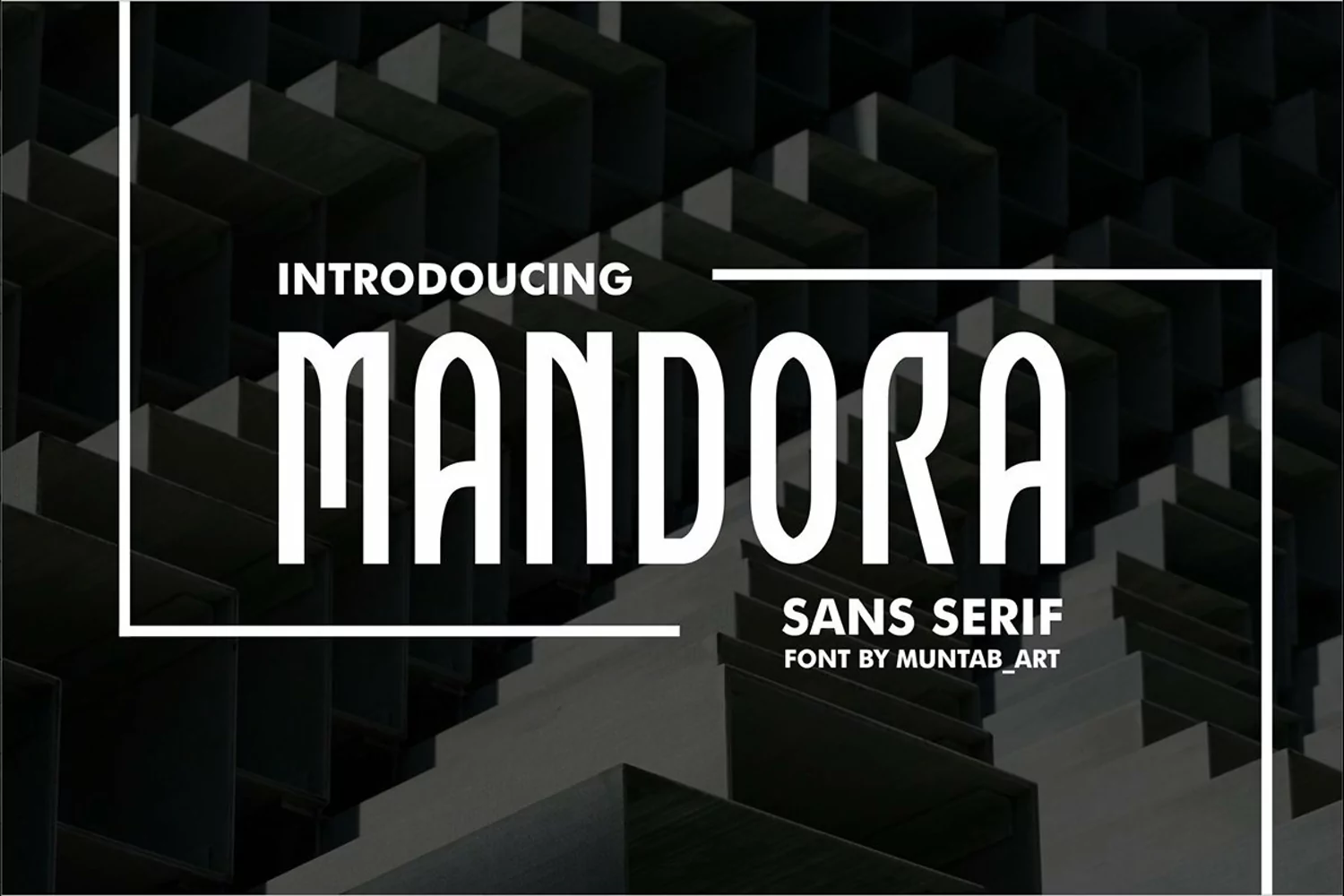
Mandora | Modern Font
Mandora
Mandora fonts includes uppercase letters, numerals, a large range of punctuation. sans serif font with modern style. Created for poster, web design, branding, illustrations, badges and some other works.